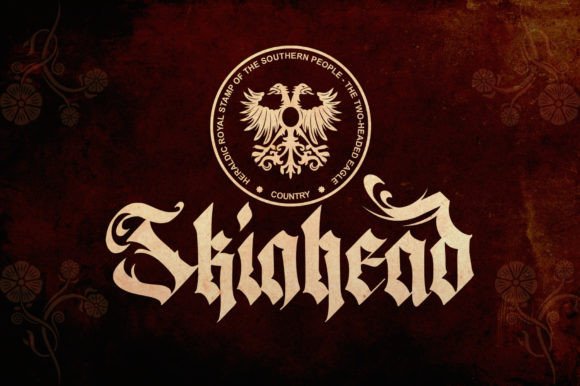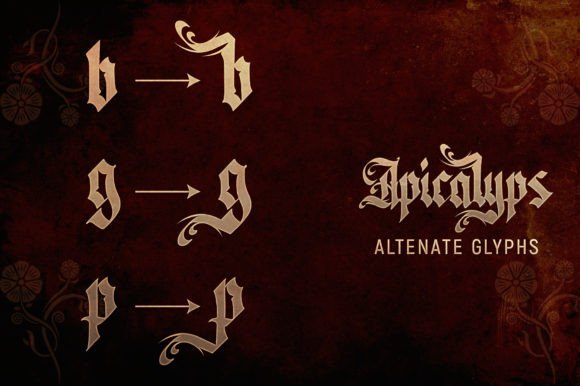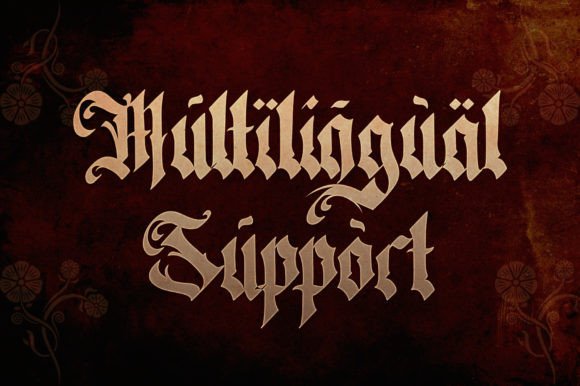
Introduction to Apicalyps Font
Apicalyps is a contemporary blackletter tattoo font that feels right at home on logos, t-shirt designs, posters, flyers, and other brand identity items.
Key Features of Apicalyps Font